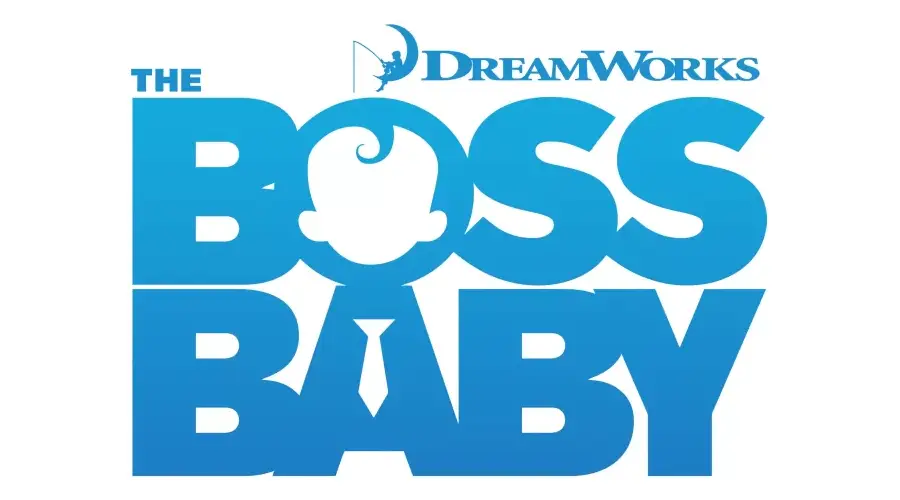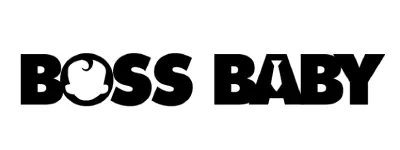
Short answer: DreamWorks’ official page shows the 2017 The Boss Baby title artwork, but it does not identify a retail typeface. The local “Boss Baby” font is therefore presented here as a fan-made visual replica, not as an official DreamWorks font.
Official lettering or replica?
The confirmed reference is the wordmark displayed on the official DreamWorks film page. That page confirms the film and its artwork, but it does not credit a downloadable font. Without a studio or designer credit, calling any file “the font used in the logo” would overstate the evidence.
How the visual replica compares
The replica follows the logo’s heavy uppercase silhouette, tight spacing, angular cuts, and baby-head detail inside the first word. Those features make it useful for testing the look, but they do not establish an official design credit or studio endorsement. Compare the B, rounded O, and narrow interior spaces against the official artwork before choosing it for a design.